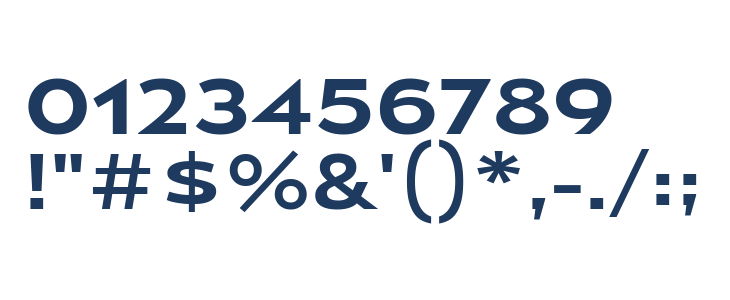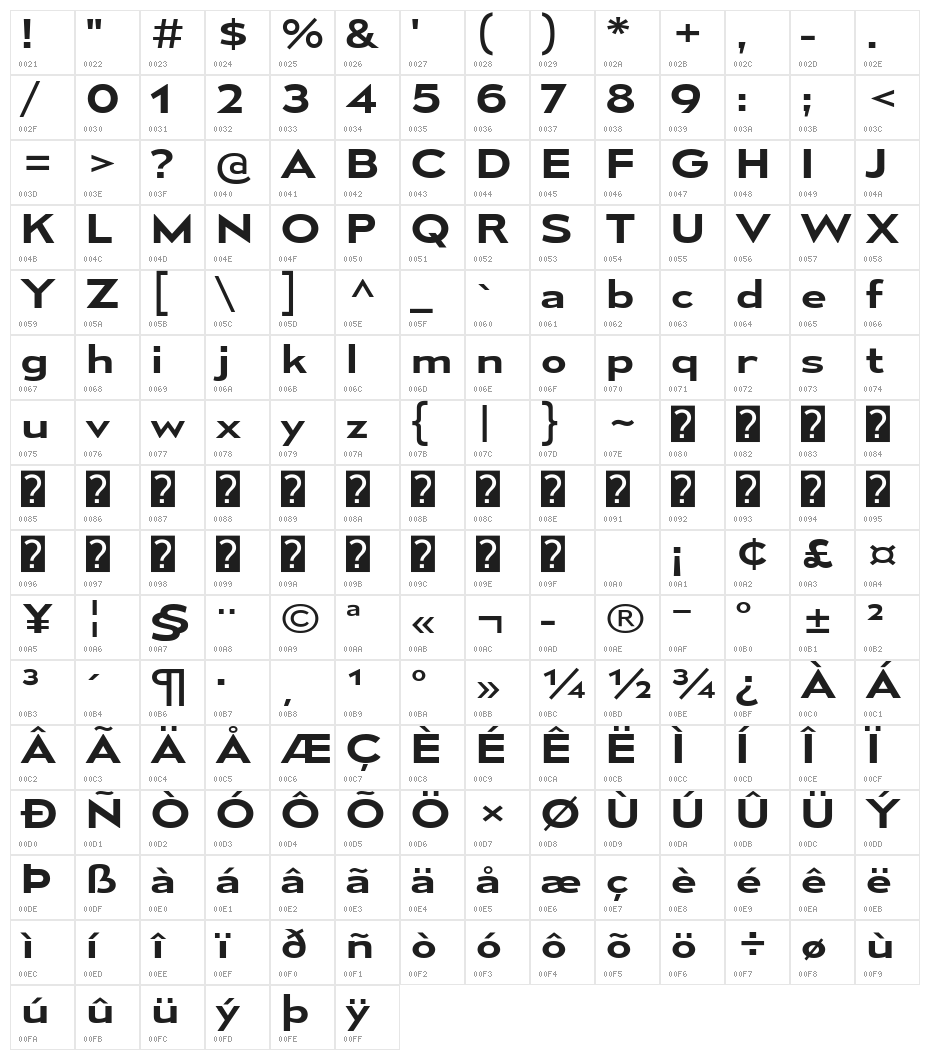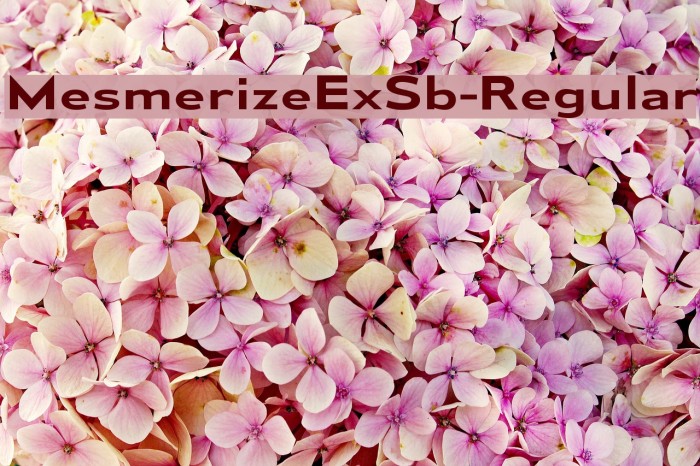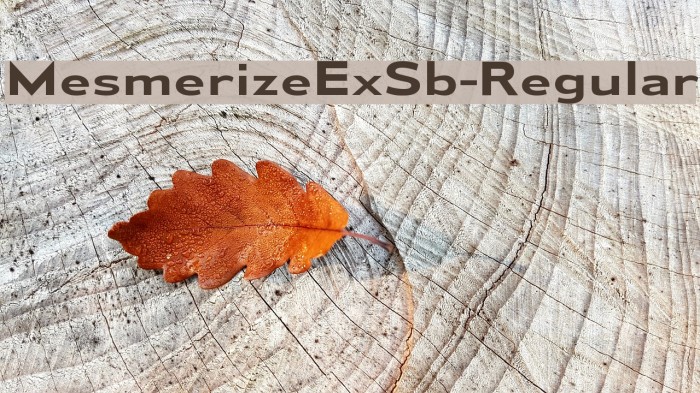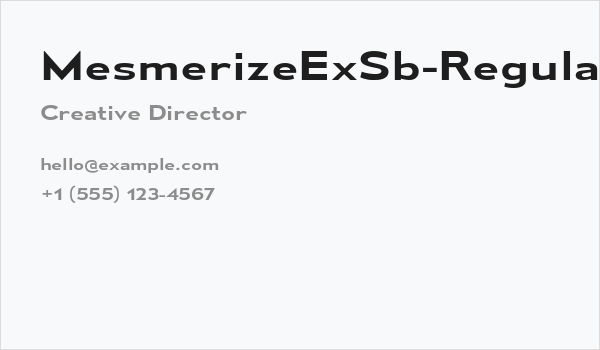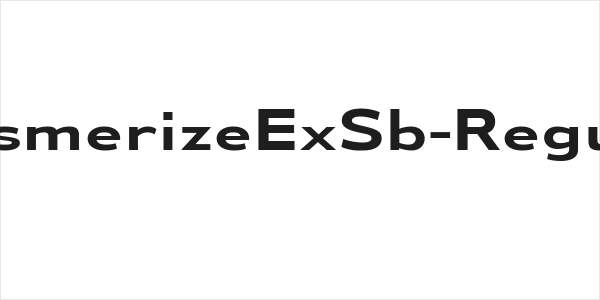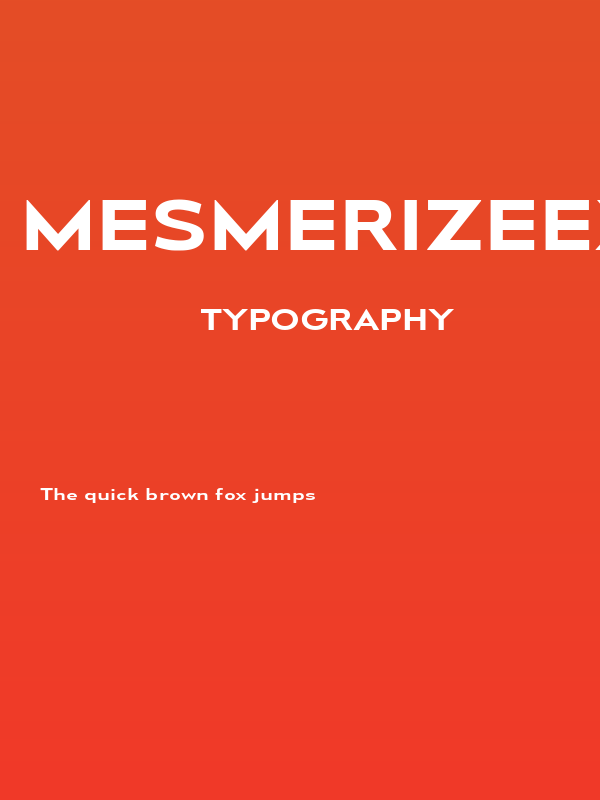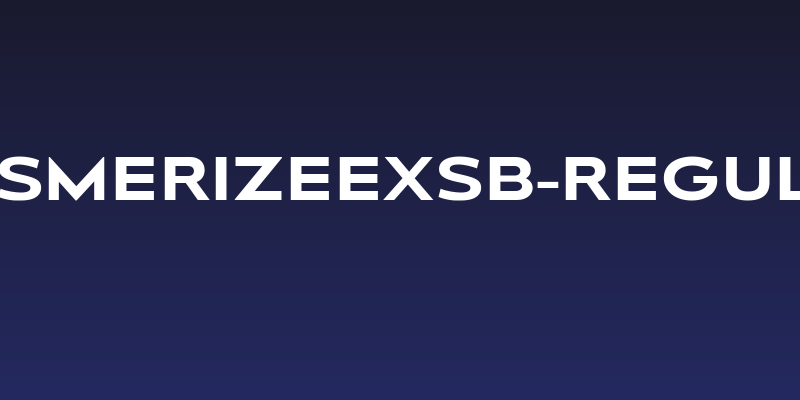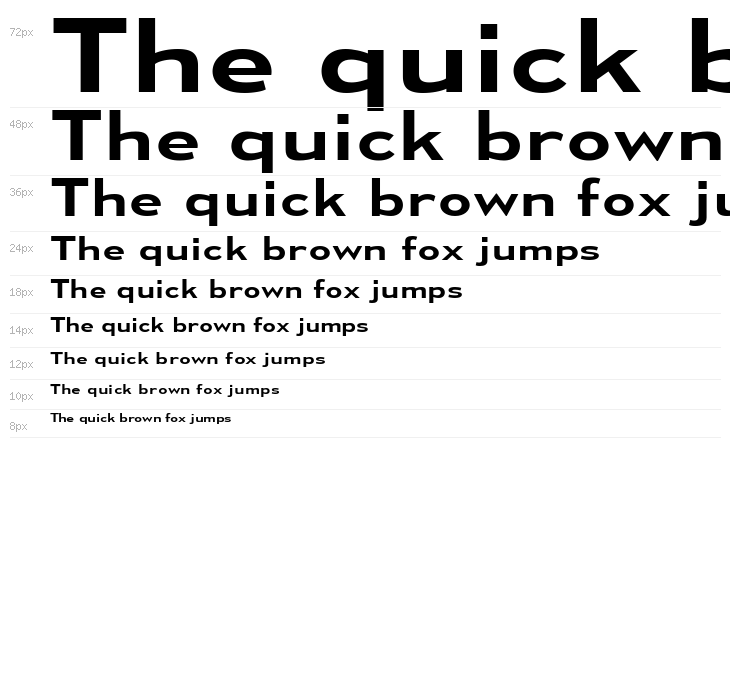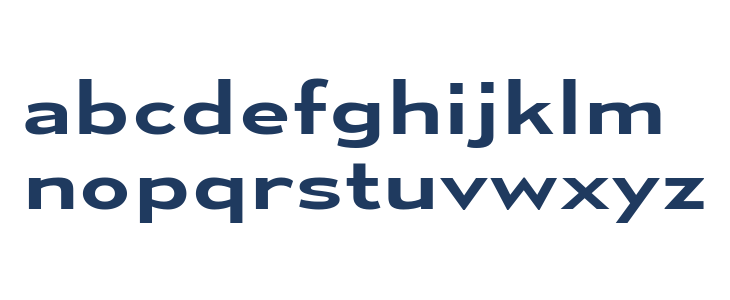
MesmerizeExSb-Regular Font
MesmerizeExSb-Regular Description
This font features a clean and modern sans-serif style with a strong geometric influence. The characters are bold and well-defined, offering excellent readability. The uppercase letters are uniform in height, while the lowercase letters maintain a consistent baseline, enhancing the font's structured appearance. The numerals are clear and distinct, making them suitable for various applications. Special characters are well-integrated, maintaining the overall aesthetic. The font's design is versatile, making it suitable for both digital and print media.